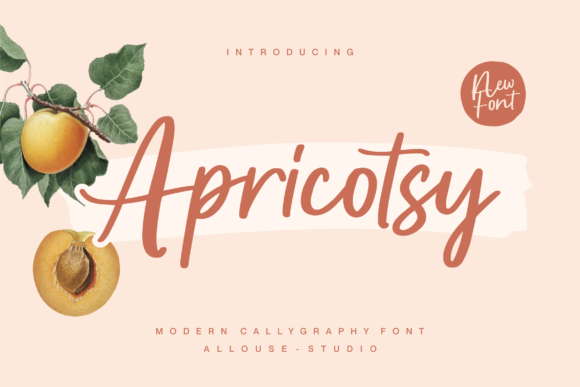
Unleashing Creativity with Apricotsy Font
Have you ever stared at a blank canvas, wondering where to start, and suddenly a burst of inspiration hits you? That’s what happened to designers who discovered the charming Apricotsy Font. This lovely script font features playful characters that seem to dance along the baseline, adding a touch of whimsy to any design.
The Apricotsy Font is designed to elevate your most creative ideas, making them stand out in a world of ordinary typography. Whether you’re designing a logo, a wedding invitation, or a children’s book, this font is sure to bring a smile to your face and a touch of magic to your work. For designers, the Apricotsy Font is a valuable addition to their toolkit, offering a unique way to express their creativity and connect with their audience.
- Unique Characteristics: Apricotsy Font features a unique, hand-drawn design with subtle texture and imperfections, giving it a personal and artistic touch.
Apricotsy Font Review
Apricotsy Font is an elegant, high-end script font that catches the eye. It’s perfect for luxury brands, high-end fashion designers, and anyone looking to add a touch of sophistication to their visual identity. Here’s what I think:
- Elegant and sophisticated feel
- Perfect for luxury brands and high-end fashion
- Well-suited for headings and titles
- Good legibility, even at smaller font sizes
- Not suitable for body text or large blocks of text
- May be difficult to read at very small font sizes
- Limited language support (no Cyrillic or Greek support)
Overall, I’m impressed with Apricotsy Font. It’s a high-quality, elegant script font that’s perfect for luxury brands and high-end fashion designers. While it may have some limitations, it’s well-suited for its intended use and is sure to make a statement. If you’re looking for a font that exudes sophistication and luxury, Apricotsy Font is definitely worth considering.
Tips for Getting the Most Out of Apricotsy Font
1. Use the Apricotsy font for creative and artistic designs, such as wedding invitations or branding materials.
2. Pair the Apricotsy font with a bold, sans-serif font for maximum contrast and visual appeal.
3. Experiment with different font sizes and colors to create a unique and eye-catching design.
1. Branding materials, such as logos and business cards.
2. Wedding invitations and stationery.
3. Social media graphics and advertisements.
Alternatives to Apricotsy Font
Apricotsy Font is a beautiful script font, but it may not be suitable for every project. Here are some alternatives to consider:
Luxurious Script
Luxurious Script is a elegant and luxurious font perfect for high-end designs, such as luxury brands, weddings, and special occasions. It has a similar flowing feel to Apricotsy Font, but with more refined and sophisticated lines.
Comparison: Luxurious Script is more formal and luxurious than Apricotsy Font, making it ideal for high-end designs. It has a more polished and refined look, while Apricotsy Font has a more casual and playful feel.
Great Vibes is a modern and stylish font perfect for creative projects, such as advertising, packaging, and editorial designs. It has a similar relaxed and casual feel to Apricotsy Font, but with a more contemporary and trendy look.